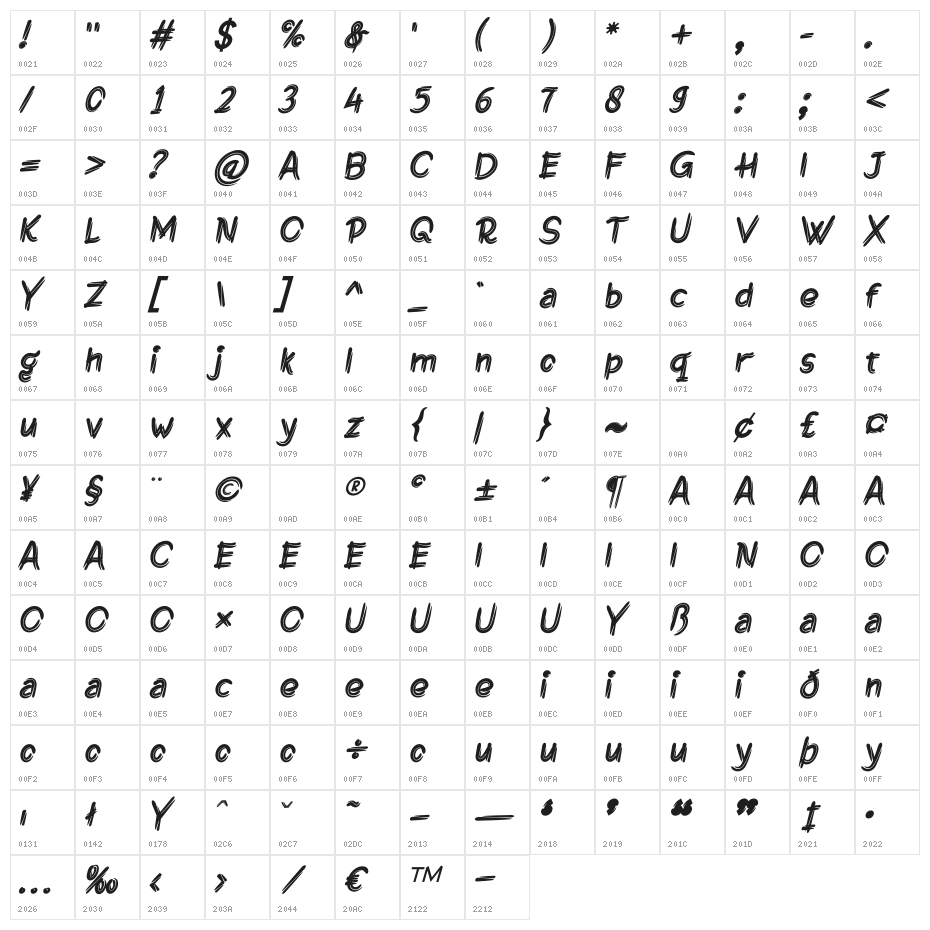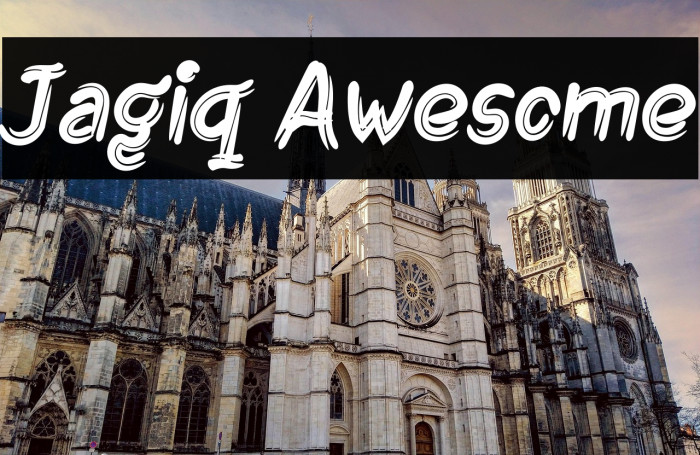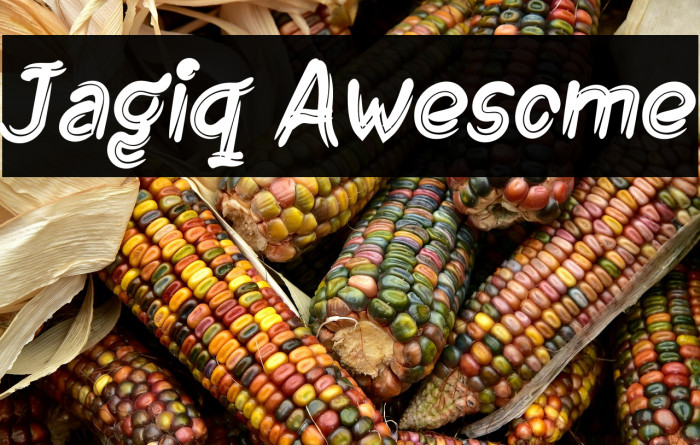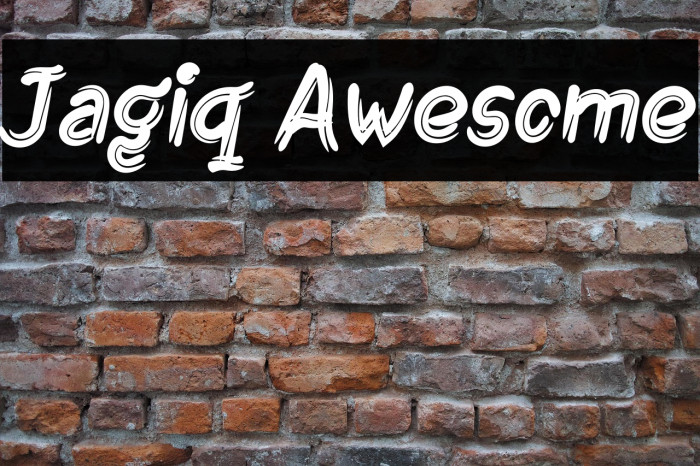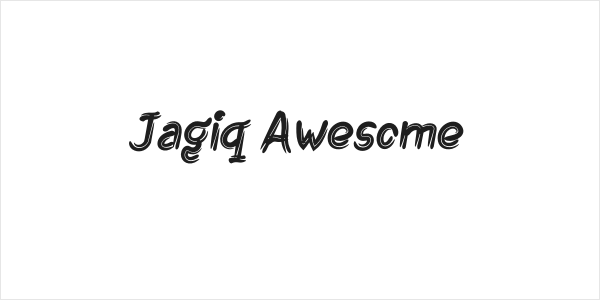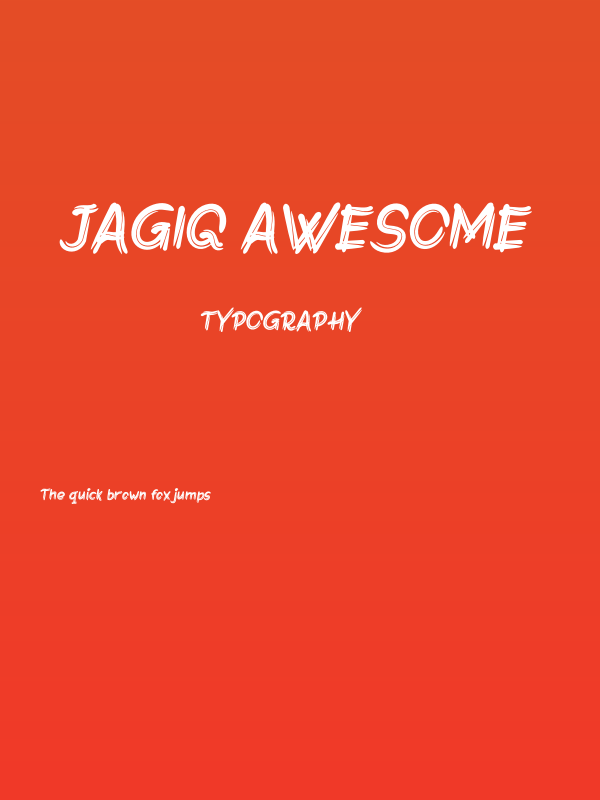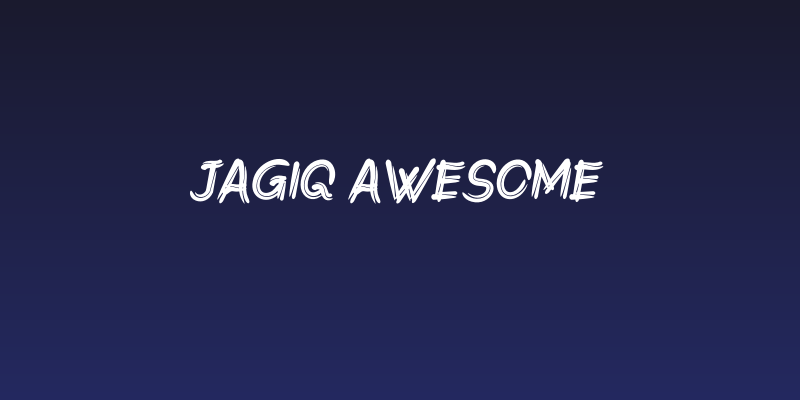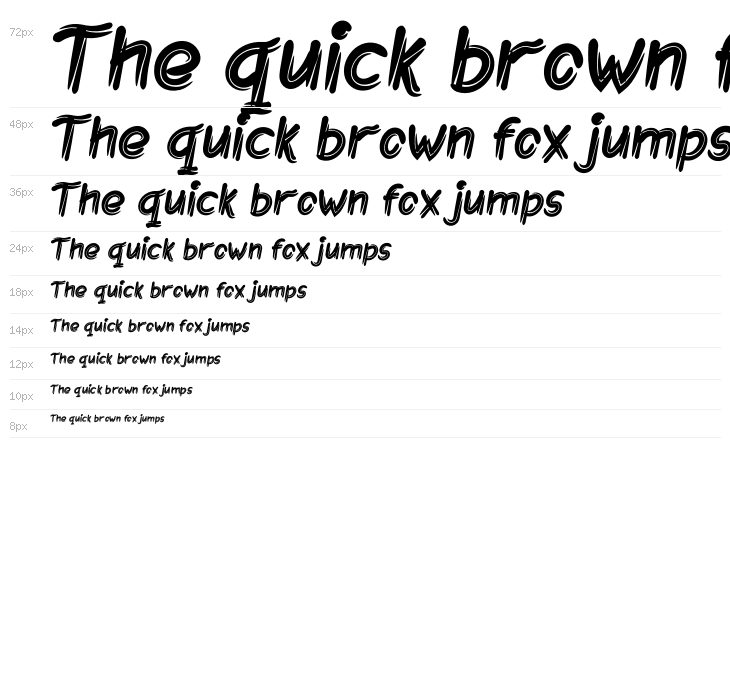
Jagiq Awesome Font
Jagiq Awesome Description
This font features a bold, energetic script style with a dynamic and playful appearance. The letters are characterized by a brush-like texture, giving them a hand-drawn feel. The strokes are thick and expressive, with a slight slant that adds to the casual and informal vibe. The uppercase and lowercase letters maintain a consistent style, while the numbers and special characters complement the overall aesthetic. The font's lively and bold nature makes it suitable for projects that require a touch of creativity and flair.
| Proposed Projects | Ideal for branding, posters, greeting cards, and social media graphics. |